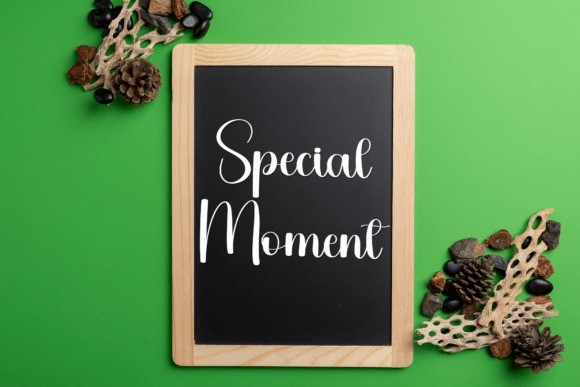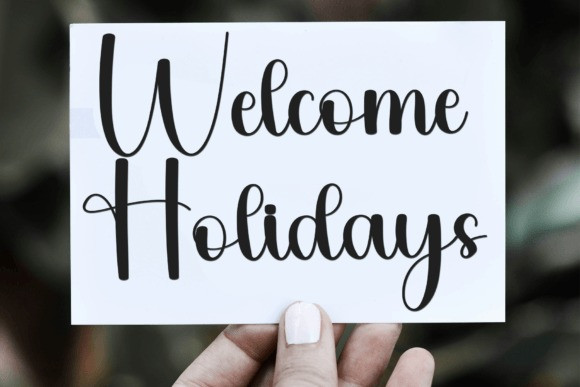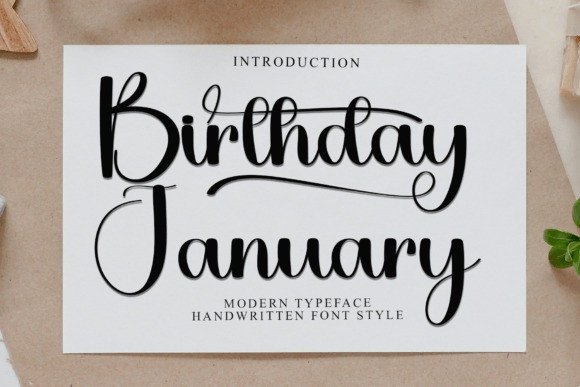
Birthday January Font
Birthday January Font is a lovely script font with smooth, flowing letters that look elegant and stylish. It’s perfect for invitations, logos, or any design that needs a touch of beauty and charm.